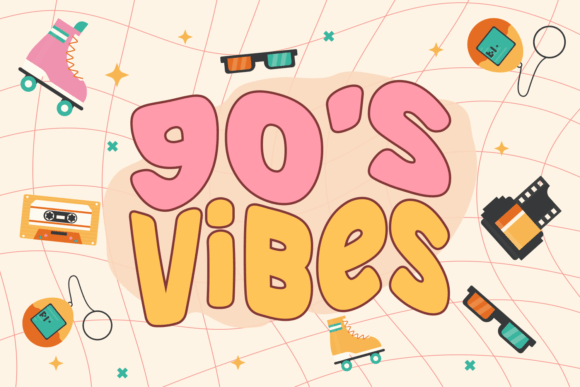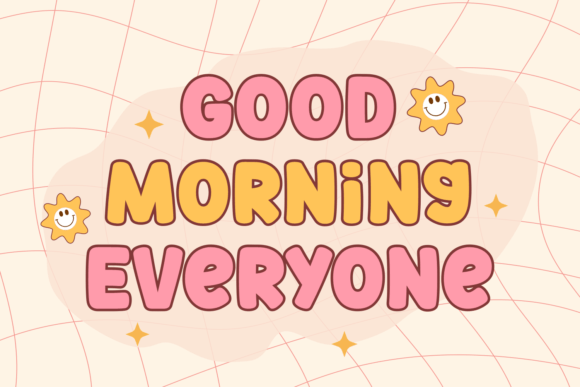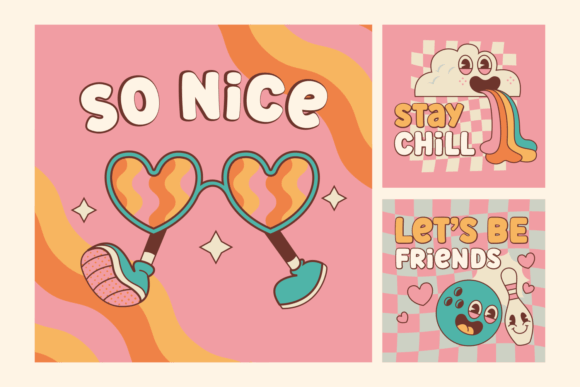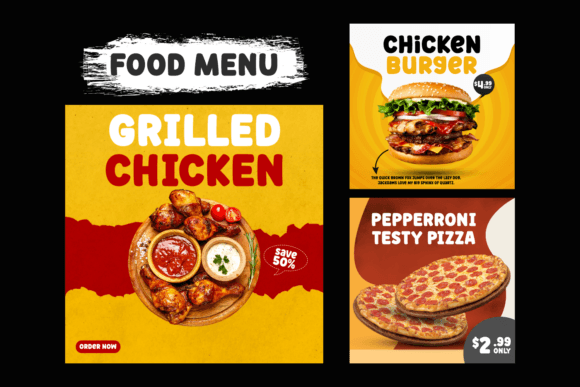
Emon Good Font: Adding a Touch of Whimsy to Your Designs
In the world of typography, fonts play a crucial role in conveying the tone and personality of a design. If you’re looking for a font that exudes joy, playfulness, and spontaneity, look no further than Emon Good. This delightful font is sure to bring a smile to your audience’s faces with its curvy and bouncy letterforms.
The Characteristics of Emon Good
Emon Good is a carefully crafted font that captures the essence of fun and lightheartedness. Each character is designed to evoke a sense of whimsy and playfulness, making it perfect for designs aimed at children, celebrations, or anything that calls for a touch of cheerfulness. The font’s curvy and bouncy letterforms give it a lively and energetic feel, making it ideal for designs that require a bit of personality.
Perfect for Designs Aimed at Children
When it comes to designing for children, it’s essential to create a fun and engaging visual experience. Emon Good is an excellent choice for designs aimed at kids, such as children’s books, educational materials, or even nursery decor. The font’s playful and whimsical nature will instantly capture a child’s attention and add a touch of excitement to your design.
Celebrations and Special Occasions
Emon Good is also perfect for designs related to celebrations and special occasions, such as birthday parties, weddings, or baby showers. The font’s cheerful and lively vibe will add a touch of festivity to your designs, making them perfect for invitations, greeting cards, or social media graphics.
Using Emon Good in Your Designs
Emon Good can be used in a variety of design applications, including:
- Headlines: Add a touch of whimsy to your headlines with Emon Good’s curvy and bouncy letterforms.
- Invitations: Create playful and fun invitations for parties, events, or special occasions.
- Creative Displays: Use Emon Good to add a touch of personality to your creative displays, such as posters, flyers, or social media graphics.
Why Choose Emon Good?
So, why choose Emon Good over other fonts? Here are a few reasons:
- Unique Personality: Emon Good has a unique and distinctive personality that will set your designs apart from the rest.
- Playful and Whimsical: The font’s playful and whimsical nature makes it perfect for designs that require a touch of fun and lightheartedness.
- Versatile: Emon Good can be used in a variety of design applications, from headlines to invitations and creative displays.
Tips for Using Emon Good Effectively
Here are a few tips for using Emon Good effectively in your designs:
- Pair with Other Fonts: Pair Emon Good with other fonts to create a unique and visually appealing combination.
- Experiment with Colors: Experiment with different colors to find the perfect combination that complements Emon Good’s playful and whimsical nature.
- Use it Sparingly: Use Emon Good sparingly to add a touch of personality to your designs, rather than overusing it.
Emon Good is a delightful and whimsical font that adds a touch of playfulness to any project. With its curvy and bouncy letterforms, Emon Good captures the essence of joy and spontaneity, making it perfect for designs aimed at children, celebrations, or anything that calls for a touch of cheerfulness. Whether used in headlines, invitations, or creative displays, Emon Good is sure to bring a smile to your audience’s faces.